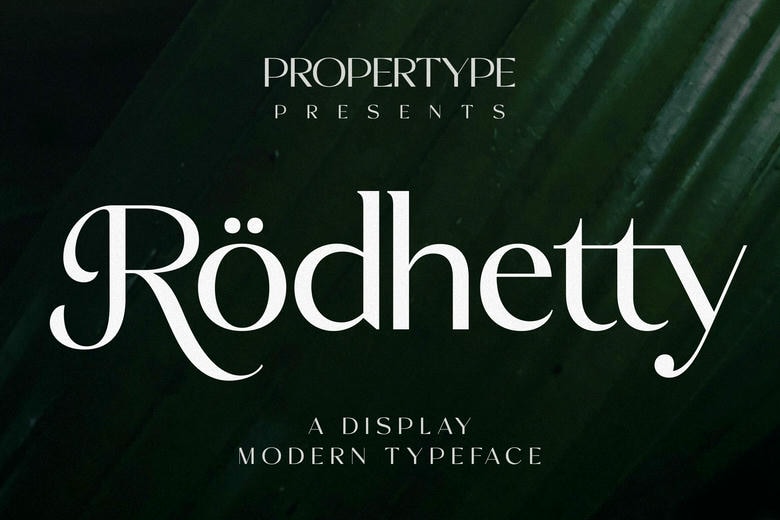
Rodhetty Font
Rodhetty is an elegant display font with contrast lines and unique curved terminals inspired by George. It brings a sleek, refined style to logos, holiday cards, wedding invitations, quotes, advertisements, and more.
Rodhetty offers a complete set of modern uppercase and lowercase letters, numbers, punctuation, and multilingual symbols. It also includes OpenType features such as ligatures and alternates.
Rodhetty Display Font